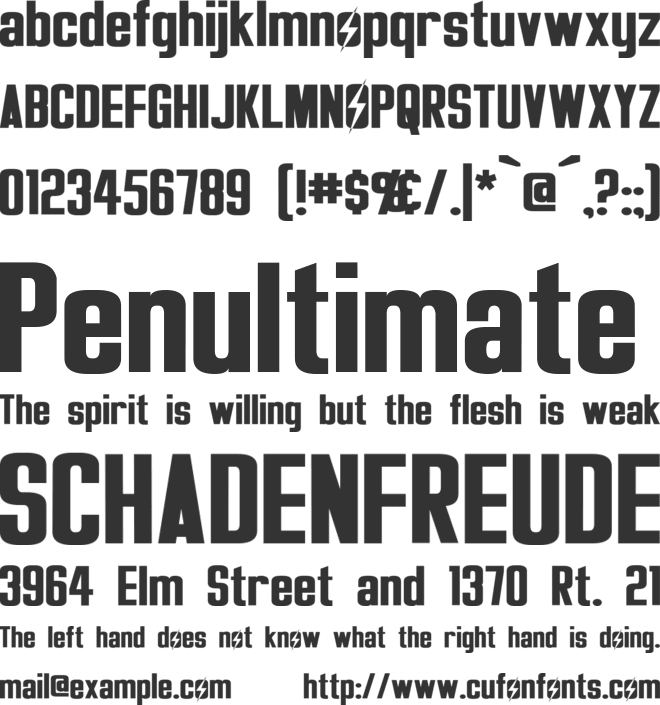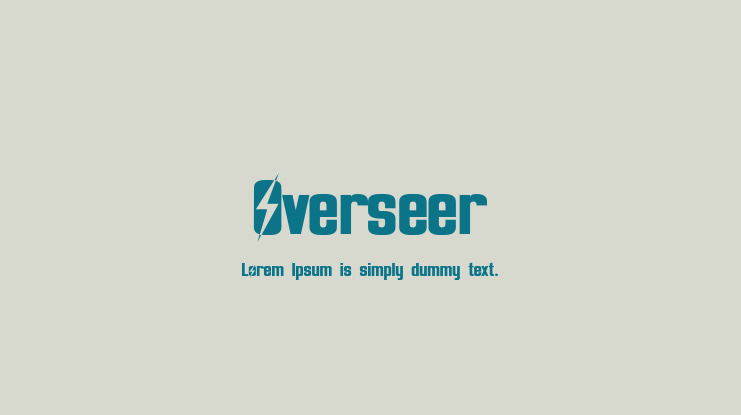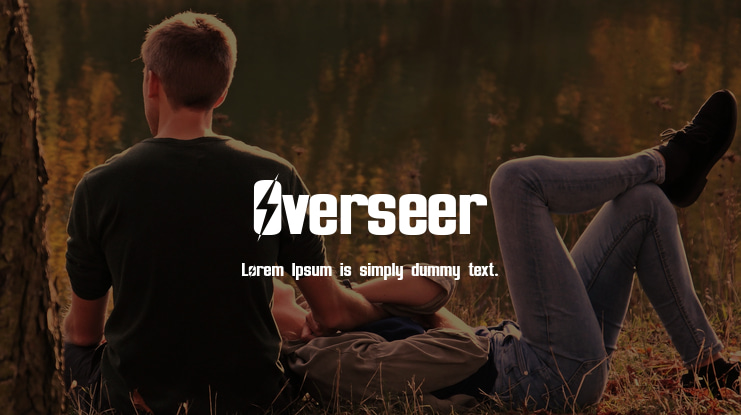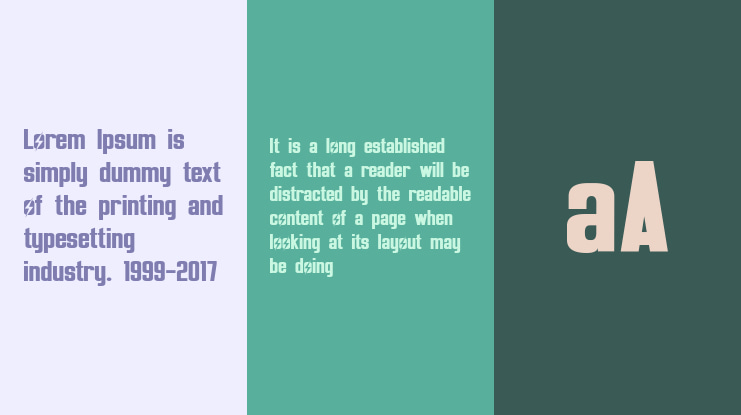
Overseer Font Family
Neale Davidson
This simple, bold typeface is based on the title logo for the Fallout franchise, down to the lightning-flourished 'o'. Includes full alphabet, lower case, accent characters, and Euro. Includes bold and italic version.